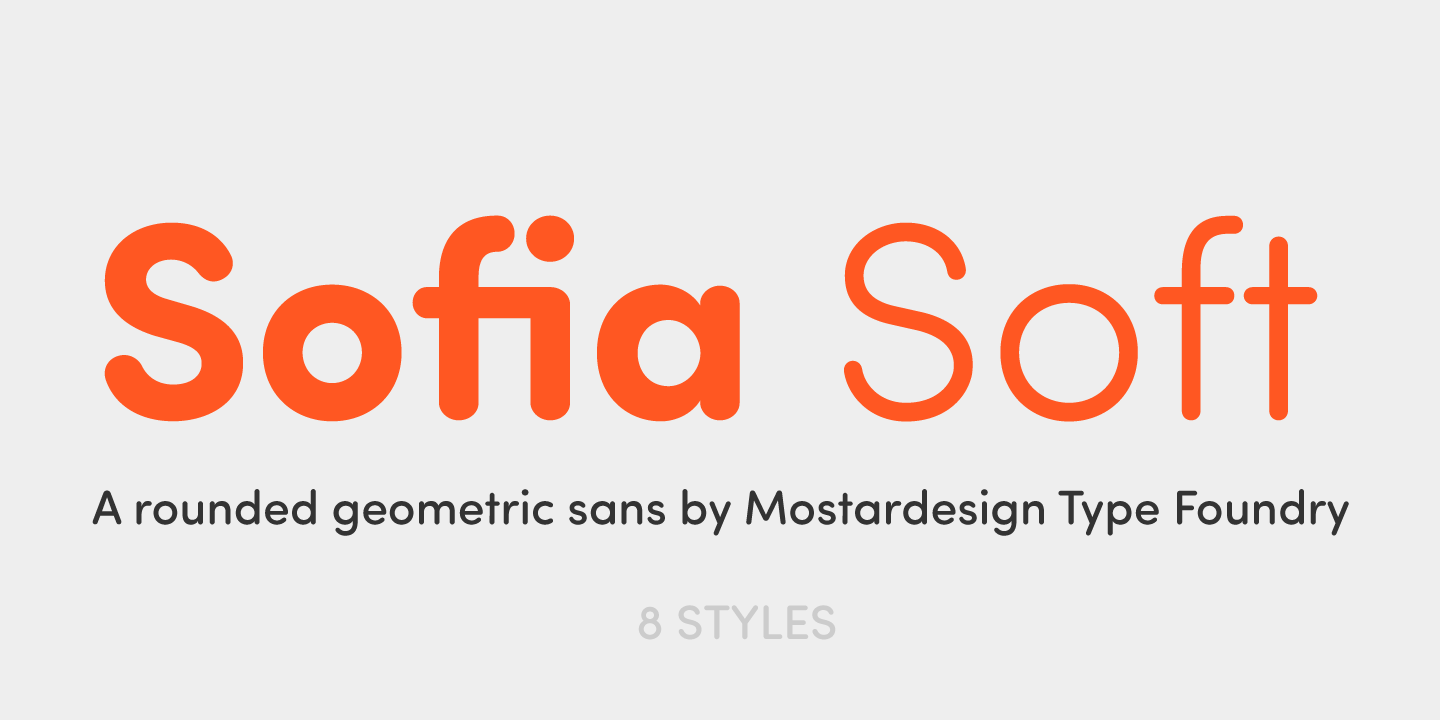
Add elegance and warmth to your typography with Sofia Pro Soft Font Free Download. This refined sans-serif typeface offers soft curves and smooth edges that make your design feel modern, approachable, and highly professional. It’s perfect for branding, mobile apps, UI/UX design, editorial projects, and lifestyle packaging.
Sofia Pro Soft is a versatile choice, blending geometric structure with a gentle flow that enhances readability and emotional connection. Whether you're designing for a wellness brand, a luxury product, or a tech startup, this font elevates your visuals with clarity and sophistication.